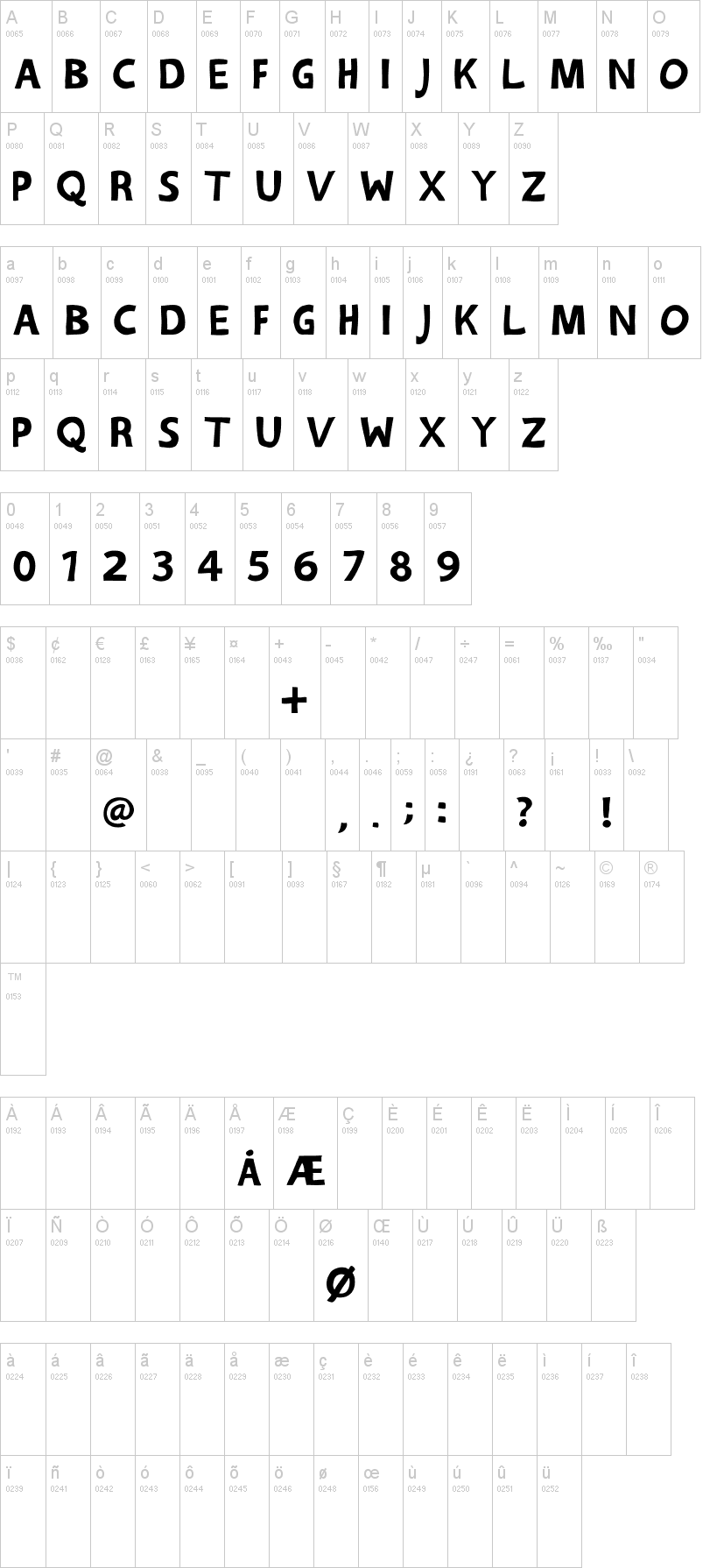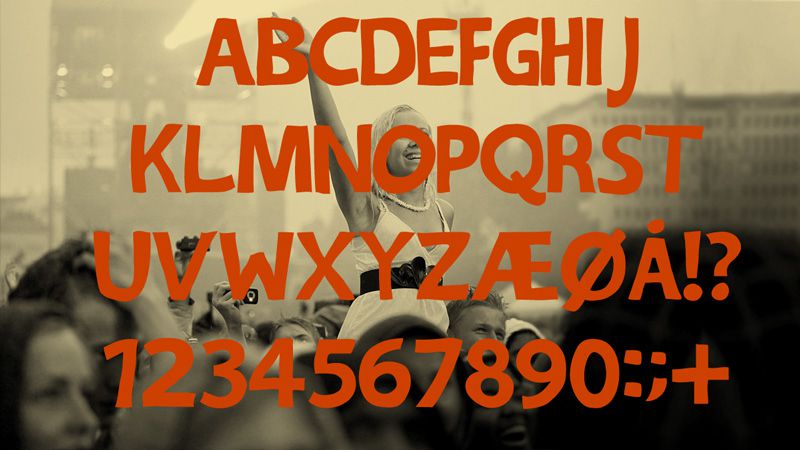
Шрифт Festival Jomfruer
This font was used on some headings/intro text for a new online series over @ NRK P3 named Festival Jomfruer (festival virgins) So, after drawing a lot of letters, I found out that I might just make a font out of it. And of course it should be free.